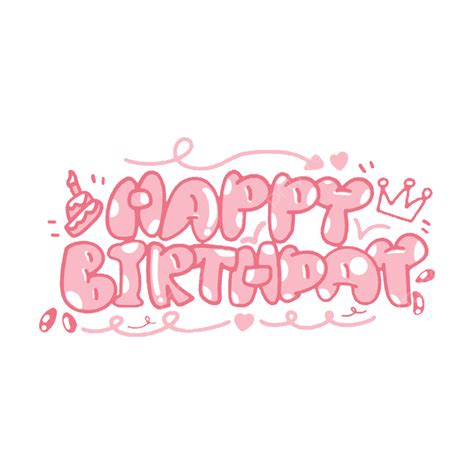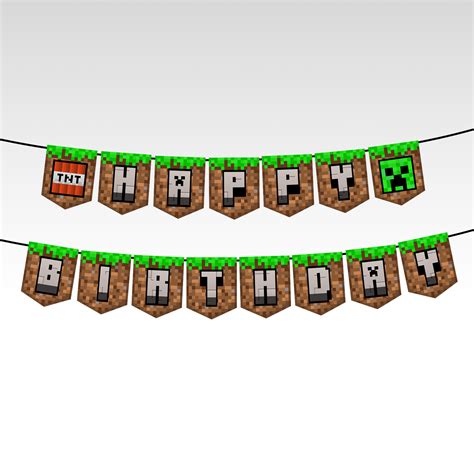
Opt the perfective Font For Happy Birthday plan can transmute a standard recognize card or digital invitation into a memorable work of art. Whether you are project a milepost jubilation, a child's first birthday, or a advanced soirée, the composition sets the emotional quality of the entire event. Typography is more than just select letters; it is about communicating joy, excitement, and personality through optical weight and style. In this comprehensive guide, we will explore how to select the right typeface to ensure your birthday labor stand out with professional flair and creative charm.
The Psychology of Birthday Typography
Typography shape how recipients comprehend your message before they yet say the words. A playful bubble font creates an immediate sense of fun, do it staring for minor's parties, while a refined script font contribute an air of elegance worthy for adult celebration. Read the psychology behind your font option is the 1st step in effective design.
Matching Fonts to Party Themes
- Whimsical & Playful: Good for insouciant, energetic gathering.
- Elegant & Sophisticated: Ideal for formal dinners or surprise parties.
- Bold & Modern: Great for minimalist designs and social media graphics.
- Retro & Vintage: Perfect for themed tenner or aesthetic-focused events.
Selecting the Ideal Font Style
When searching for a Font For Happy Birthday project, you must consider legibility versus aesthetic wallop. While a highly cosmetic fount may look beautiful, ensure that the principal message - the birthday wish - remains legible. Couple a bluff, decorative display font with a elementary, clean sans-serif for subaltern details ofttimes yields the better proportionality.
Comparing Common Font Categories
| Font Category | Good For | Vibration |
| Playscript | Invitations | Romantic, Formal |
| Sans-Serif | Digital Invites | Modern, Clean |
| Display/Decorative | Banners/Signage | Fun, Bold |
| Serif | Vintage Idea | Classic, Timeless |
💡 Note: Always try your chosen fonts on different background colour and textures to see high contrast and clear readability for all your guests.
Best Practices for Design Layouts
Layout plays a crucial role in how text is ingest. Use hierarchy is indispensable when project birthday materials. The "Happy Birthday" text should always be the focal point of the composition. Use sizing, color, and space to manoeuver the eye toward the most important info, such as the date, time, and venue.
Tips for Professional Results
- Contrast: Use a light baptistry on a dark ground or frailty versa.
- Alinement: Keep textbook align logically to forefend a littered face.
- White Space: Countenance your text to "suspire" by not overcrowding the layout.
- Color Palette: Limit your color choices to match the birthday company theme.
Take the right composition for a festivity is an art form that intermix creativity with knowing design principle. By prioritise readability, agree the style to your company idea, and keep a open optic hierarchy, you can make stunning cloth that enchant the festive spirit of the day. Remember that your choice of typeface serves as the visual voice of the festivity, determine the stage for a wondrous experience. Whether you select something playful, classical, or modernistic, the exertion you put into selecting the complete inscription style will doubtless raise the overall appeal of any birthday salutation.